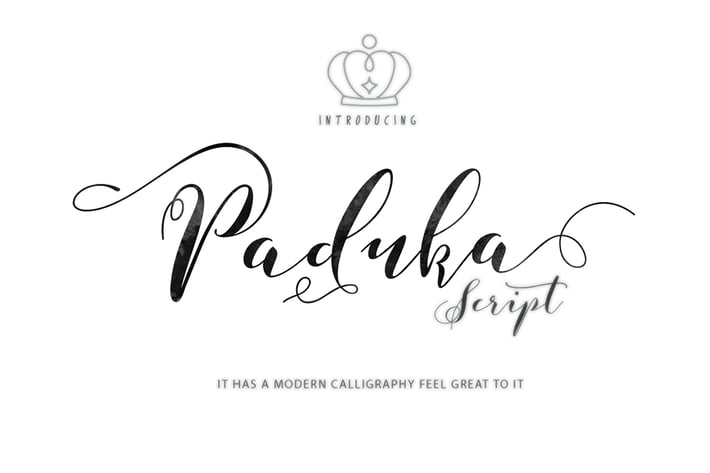
Paduka Script + Webfonts
Paduka is a script font with 471 glyphs. Paduka is equipped with plenty of OpenType features: To activate the alternates click on Swash, and Stylistic Alternates in any OpenType savvy program or manually select the characters from Glyph Palette.